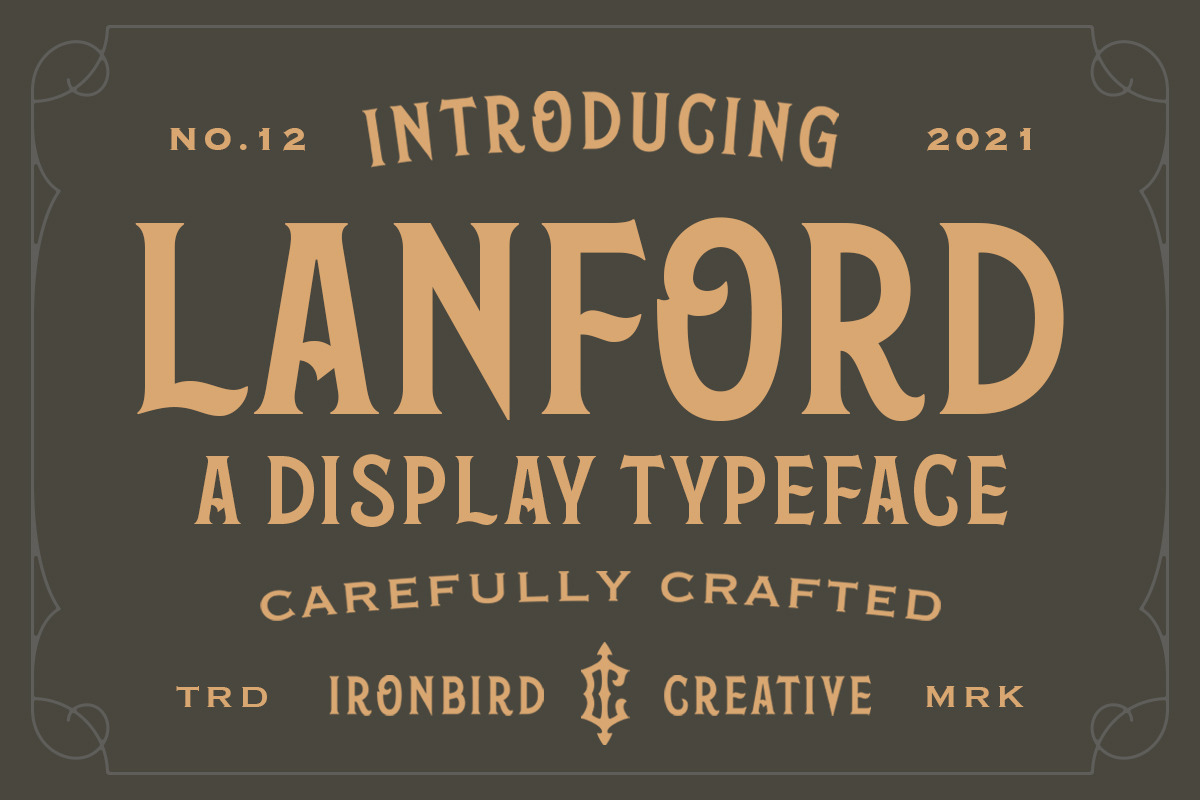
Lanford - Display Typeface
Lanford is a powerful display typeface inspired by vintage type with carefully crafted. Comes with FREE Helvegen Rounded sans serif to make better design. This typefaces is perfect for people looking for vintage aesthetic. Suitable for any graphic designs such as branding materials, t-shirt, print, logo, poster, t-shirt, quotes .etc